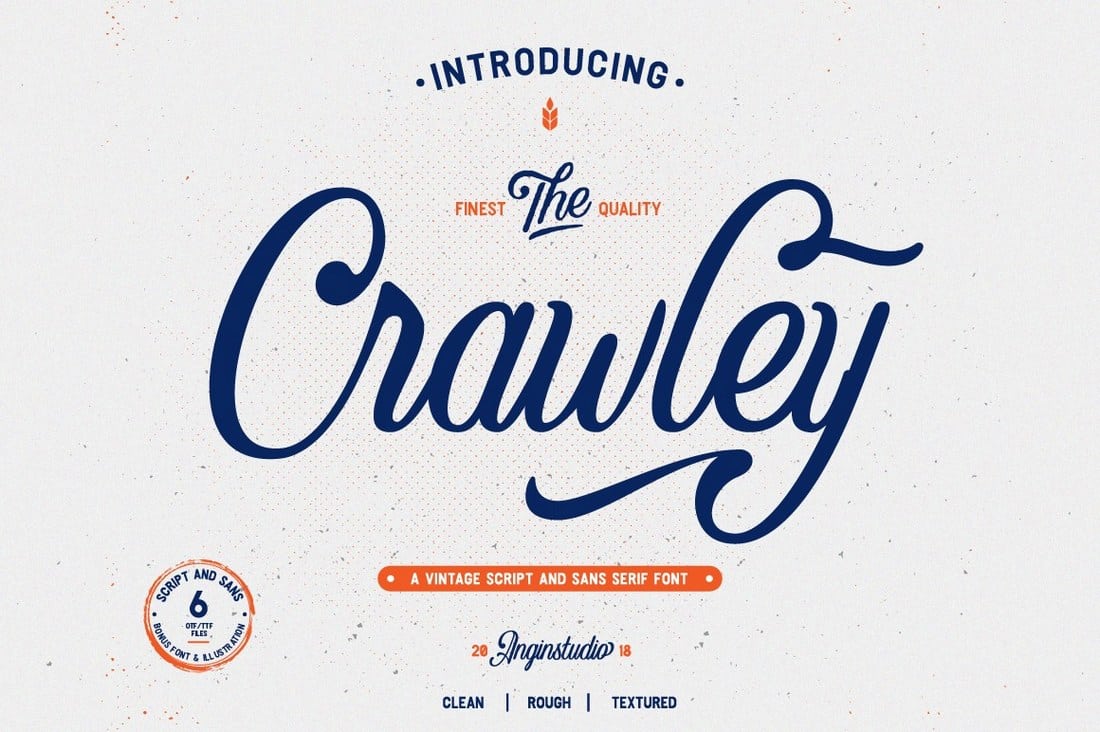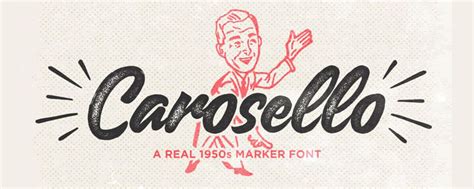
Download Handwriting Font Free Commercial - Reminiscent of writing with a sharpie, the tragic marker handwriting font has thick, clean lines that make it perfect for calling attention to important content. Download the best free handwritten fonts, that are hand picked collections by our editorial experts and can be used on mac, pc, website.
I just love handwritten print and script, and it's so nice to know what there are some beautiful choices that can be used on any project you have, even for items you make and sell. Fast highlander handwrite regular by rogerio marques.
Free nutty font is the unique handwriting font for creating elegant headlines, fashion magazine covers, book covers. Free fonts for branding, business, blogging and commercial use. Inspired by the work of the artist stuart davis. Craft a personalized note with one of these amazing handwritten fonts below. This font is free for personal and commercial use with attribution back to medialoot. If you want more do check out our. The style of this font are casual, lovely, contemporary, modern, elegant, luxury and classic brush font. The fonts are free for personal and commercial use. All fonts are categorized and can be saved for quick reference and comparison. All tags free for commercial use basic sans serif slab serif script decorative dingbats non latin pixel style 3d blocky cartoon cute curly futuristic grunge outline hand brush cursive. Here are 50 free handwriting fonts you can incorporate into your designs to give them a unique, handwritten feel (without the time and hassle necessary to every one of the free handwriting fonts on this list is available for download at zero cost to you—so if you want to lend a unique, handwritten. Added by vhackett (1 style). The best selection of handwriting fonts for windows and macintosh.
Quillbacks script font is a modern handwriting calligraphy font. Added by vhackett (1 style). Writing fonts include both printing and cursive styles and is less artistic than formal calligraphy.
Pops is a simple, smooth font with a tribal vibe courtesy of artist he says: Here are 50 free handwriting fonts you can incorporate into your designs to give them a unique, handwritten feel (without the time and hassle necessary to every one of the free handwriting fonts on this list is available for download at zero cost to you—so if you want to lend a unique, handwritten. Free for personal and commercial use.
Download the best free, modern fonts in mona is a hand drawn brush uppercase font created by evita.
Fonts of this category «handwritten fonts». Some handwriting is beautiful, some handwriting has a certain flow, and some are more personal than.